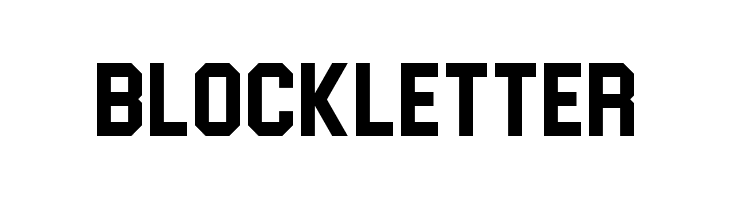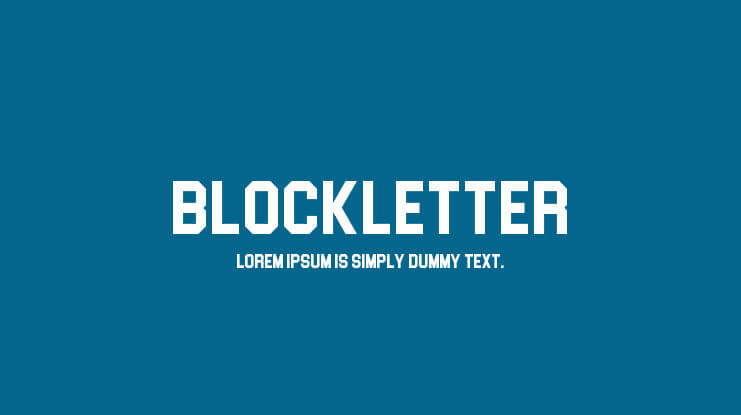
Blockletter Regular Font
Blockletter Regular font is a widely used font that is comparable to the gidole font. It is a free version that includes both uppercase and lowercase letters.
With a clean, elegant, retro vibe, and an unusual blend of sharp and rounded edges, the font becomes created for an experimental design venture.
Style Of Blockletter Regular Font Free